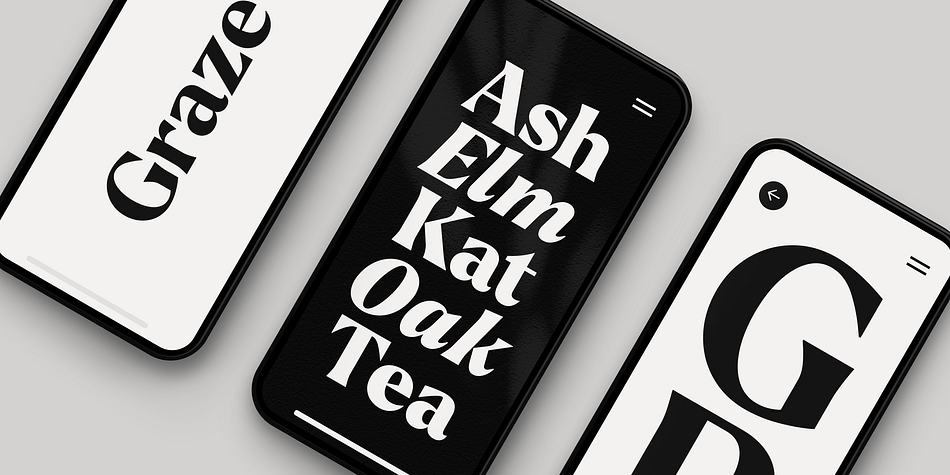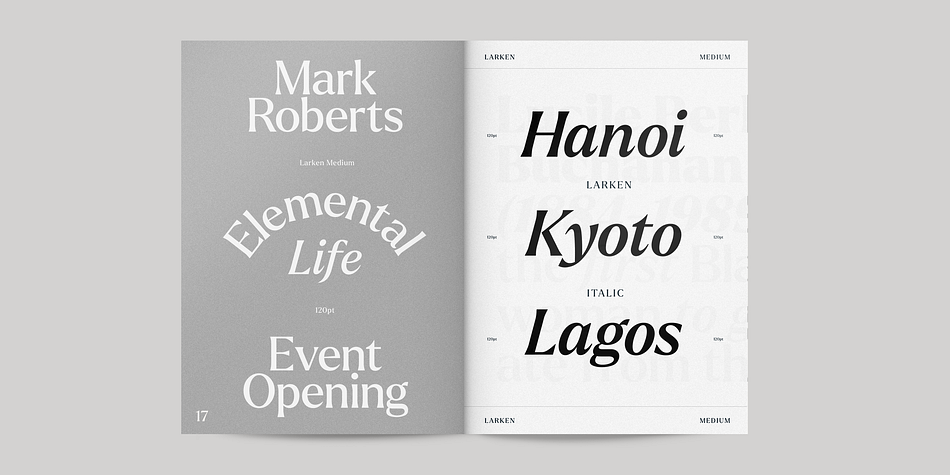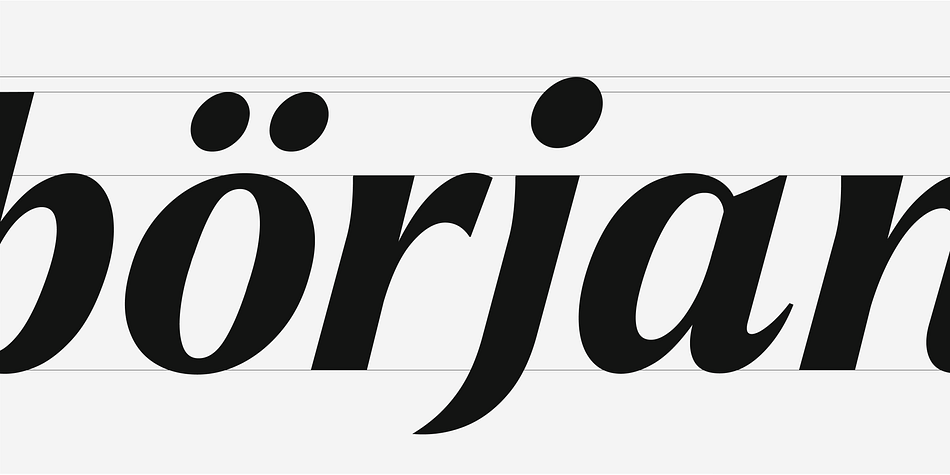
Larken
Designed by Ellen Luff and Tom Watkins, Larken is a serif font family. This typeface has sixteen styles and was published by Ellen Luff.
Larken is a confident serif.
Designed to reflect nature, it creates a sense of natural softness and expressiveness. We pushed the concept into a usability focused direction, to work as a bold tool and beautiful communicator.
Larken variable allows fluid design across 7 weights, italics and major latin based languages. True italics advance the aesthetics, bringing energy and making it suitable for modern design.
The type family melds organic curves and gentle repetition into powerful and harmonious type. At large point sizes you can appreciate the letter shapes, whilst the same restraint and focus creates an even texture for small point sizes and long reading.
The font broadens its use by supplying weights all the way from thin to black. The natural curves, swells and sloping trunks, grow in character as the font gains weight. Whilst the thinner weights have lowered contrast and optical corrections to create a warm and gentle appearance.
The Larken character set incorporates additional symbols, stylistic alternates, unique ligatures and case sensitive punctuation - producing a stable workhorse family ready to tackle projects of any size.